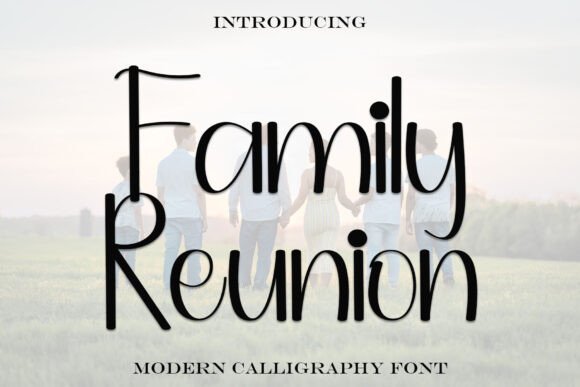
Introducing Family Reunion Font: The Sweet and Cursive Handwritten Font for Your Design Needs
Are you looking for a font that can add a touch of elegance and romance to your designs? Look no further than the Family Reunion font. This sweet and cursive handwritten font is perfect for a variety of design projects, from branding and logos to wedding materials and greeting cards. In this article, we’ll take a closer look at the Family Reunion font and explore its features, benefits, and uses.
Key Features of Family Reunion Font
- Sweet and Cursive Handwritten Style: The Family Reunion font features a beautiful, cursive handwritten style that is both elegant and casual.
- Versatile: This font is perfect for a wide range of design projects, including branding, logos, wedding materials, greeting cards, fashion, lookbooks, and marketing promotions.
- Easy to Read: The Family Reunion font is highly legible, making it easy to read and understand, even at small sizes.
- Unique and Creative: This font has a unique and creative style that will help your designs stand out from the crowd.
Design Uses for Family Reunion Font
The Family Reunion font is a versatile font that can be used for a wide range of design projects. Here are some ideas to get you started:
- Branding and Logos: Use the Family Reunion font to create a unique and memorable brand identity.
- Wedding Materials: This font is perfect for wedding invitations, wedding cards, and other wedding-related materials.
- Greeting Cards: The Family Reunion font is great for creating beautiful and heartfelt greeting cards for special occasions.
- Fashion and Lookbooks: Use this font to add a touch of elegance and sophistication to your fashion designs and lookbooks.
- Marketing Promotions: The Family Reunion font is perfect for creating eye-catching marketing materials, such as brochures, flyers, and posters.
Benefits of Using Family Reunion Font
The Family Reunion font offers a range of benefits for designers and businesses. Here are some of the advantages of using this font:
- Elegant and Sophisticated: The Family Reunion font adds a touch of elegance and sophistication to any design.
- Unique and Creative: This font has a unique and creative style that will help your designs stand out from the crowd.
- Easy to Read: The Family Reunion font is highly legible, making it easy to read and understand, even at small sizes.
- Versatile: This font can be used for a wide range of design projects, from branding and logos to wedding materials and greeting cards.
Tips for Using Family Reunion Font
Here are some tips for using the Family Reunion font in your designs:
- Use it for Headings and Titles: The Family Reunion font is perfect for headings and titles, where you want to make a bold and elegant statement.
- Pair it with Other Fonts: Experiment with pairing the Family Reunion font with other fonts to create a unique and interesting contrast.
- Use it for Body Text: While the Family Reunion font is elegant and sophisticated, it’s also highly legible, making it suitable for body text.
- Experiment with Colors and Textures: Don’t be afraid to experiment with different colors and textures to add depth and interest to your designs.
The Family Reunion font is a beautiful and versatile font that can add a touch of elegance and romance to any design. With its sweet and cursive handwritten style, this font is perfect for a wide range of design projects, from branding and logos to wedding materials and greeting cards. Whether you’re a designer or a business owner, the Family Reunion font is a great choice for anyone looking to create unique and memorable designs.